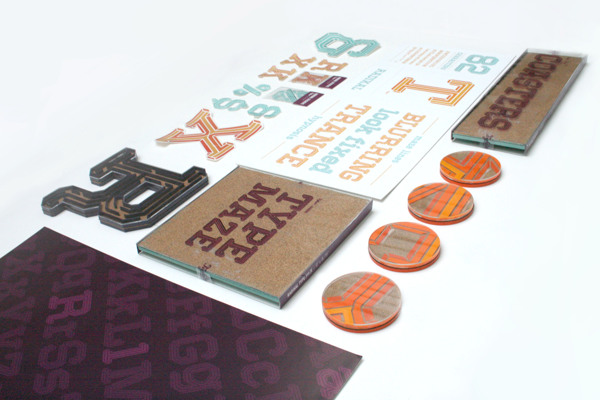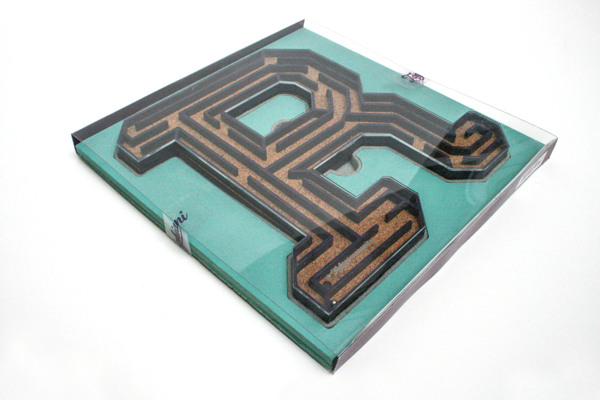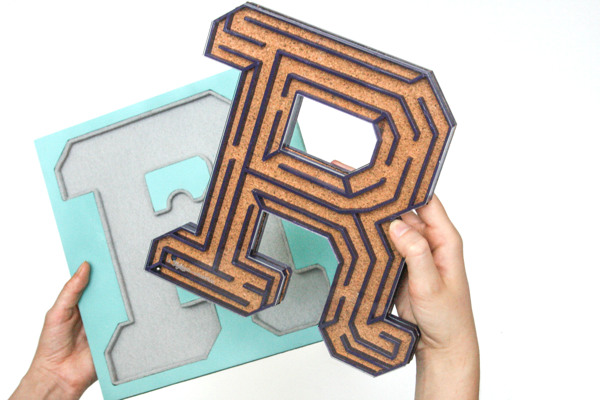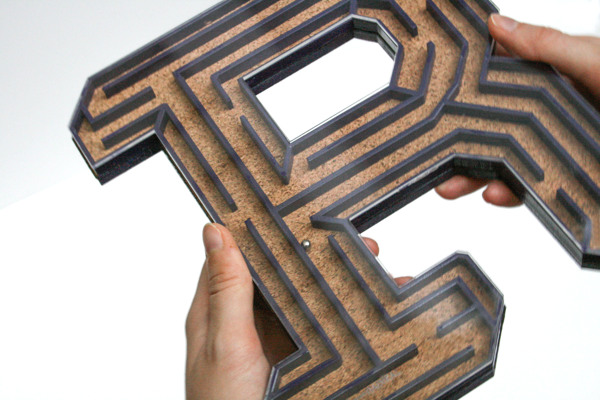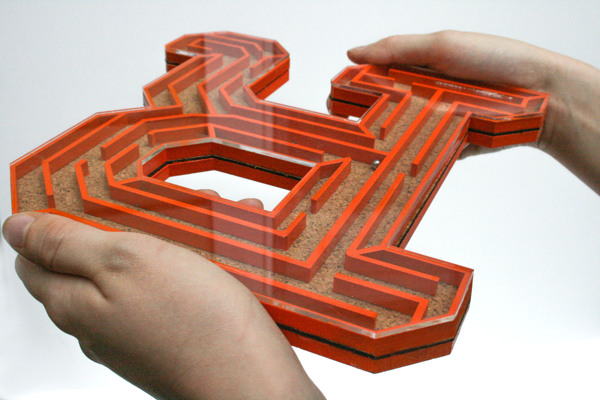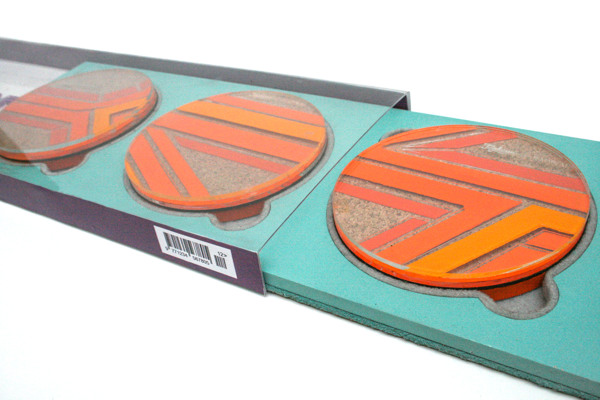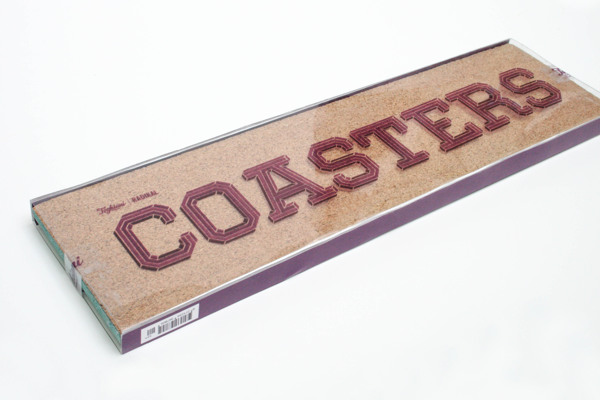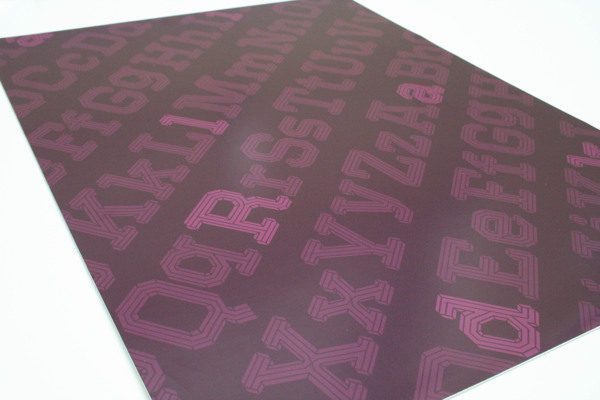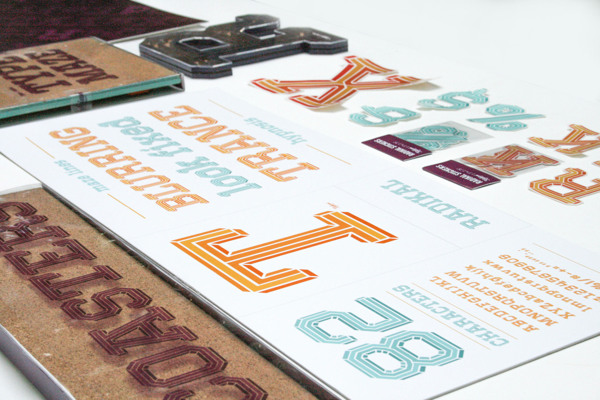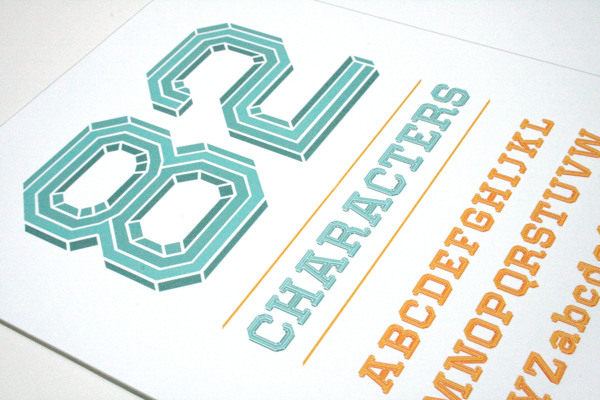
Radikal is a multi-tone, geometric typeface designed by American graphic designer Parvaneh Toghiani. Not only did she design the typeface, but she also decided to design a whole range of products around it. She designed a ball maze, coasters, stickers, and posters.